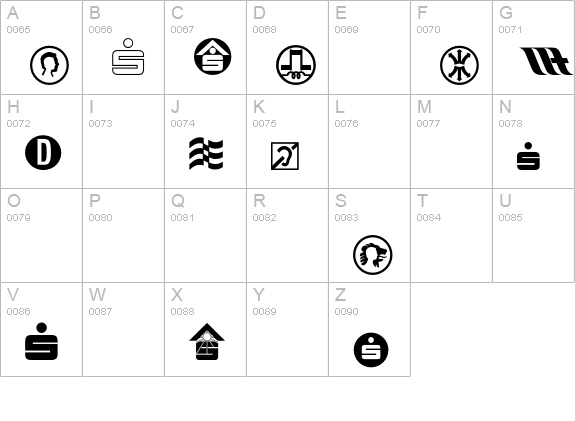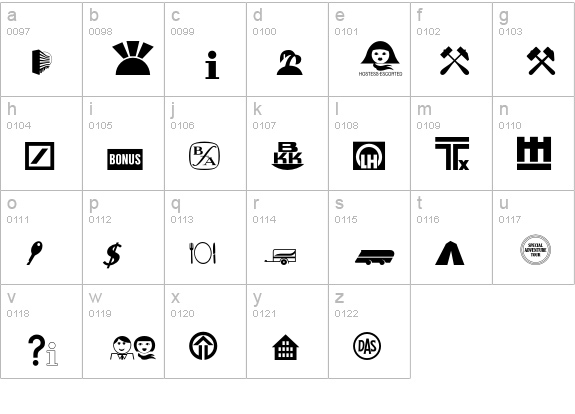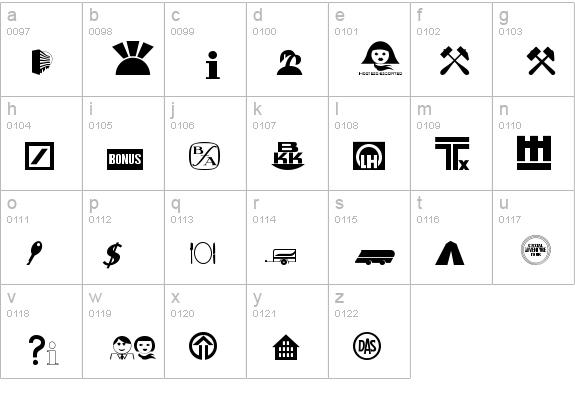
InternationalSymbolsP02 Font Details
InternationalSymbolsP02 is a versatile and visually appealing font that is designed to provide users with a wide range of international symbols for various purposes. This font is perfect for designers, graphic artists, and anyone in need of a comprehensive collection of symbols that can be easily integrated into their projects. With its clean and modern design, InternationalSymbolsP02 offers a seamless integration with any creative endeavor. Whether you are working on a website design, a branding project, or even a signage system, this font has got you covered. Its extensive set of symbols includes everything from arrows and icons to pictograms and emojis, ensuring that you can find the perfect symbol for any situation. What makes InternationalSymbolsP02 even more appealing is the fact that it is available for free. Yes, you heard it right! This font can be freely downloaded from FontsMarket.com, allowing you to enhance your creative projects without any additional cost. This means that you can access a vast library of symbols without breaking the bank. Not only is InternationalSymbolsP02 free, but it also offers a high level of quality. The symbols are meticulously crafted, ensuring that they are visually appealing and easily recognizable. This attention to detail makes this font a valuable asset for professionals and amateurs alike. So, whether you are a designer looking to add some extra flair to your creations or a non-designer in need of symbols for personal use, InternationalSymbolsP02 is the font for you. Download it for free at FontsMarket.com and unlock a world of possibilities for your design projects.